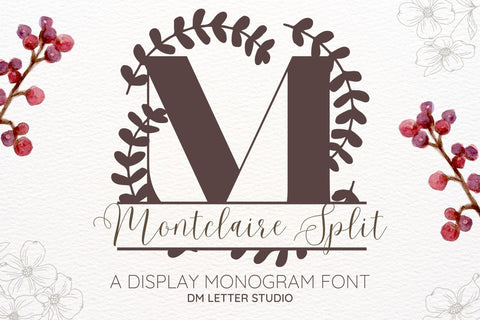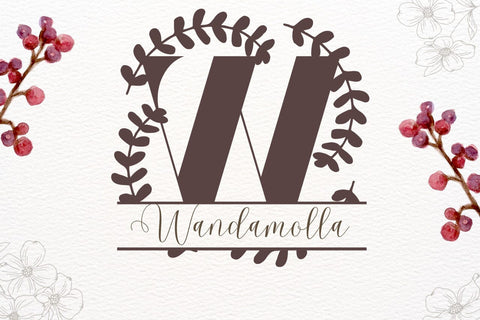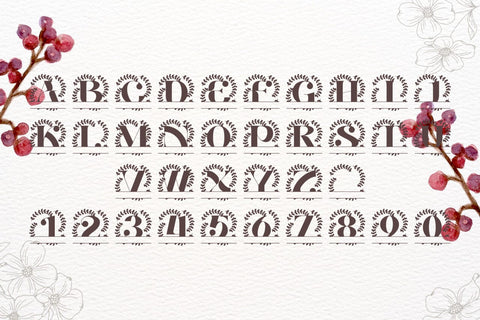
Montclaire Split Monogram Font
Meet Montclaire Split Monogram Font
Montclaire Split Monogram Font turns initials into custom nameplates in seconds. The letterforms feel poised and elegant, while the crisp horizontal split leaves space for names, dates, or short words. Because spacing stays balanced, results look polished with very little effort. Use it for wedding gifts, family signs, door hangers, tumblers, ornaments, and boutique packaging. Moreover, this Split Monogram Font pairs beautifully with a clean sans or light script, so every layout stays readable and refined.
Where this Split Monogram Font shines
Set a single initial and place the family name inside the split. Next, try couple names for keepsakes or venue names for signage. Since proportions favor clarity, designs scale from large wall art to tiny tags. As a result, Montclaire Split Monogram Font works perfectly for Cricut, Glowforge, lasers, and vinyl projects.
Design tips for Montclaire Split Monogram
Keep the main initial large to showcase the refined structure. Place the split line at center or slightly low for balance. Meanwhile, choose a simple secondary font for the text inside the split. Because the look is airy, metallic accents and natural textures add instant value—think champagne foil on blush card or matte black on walnut wood. However, keep names short so everything remains readable at smaller sizes.
Uppercase alphabet optimized for split monograms
Matching lowercase, numbers, punctuation
Curves tuned for engraving, foil, laser cutting, and clean vinyl work